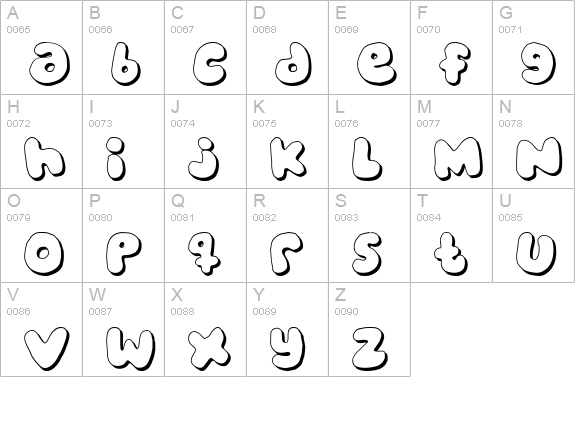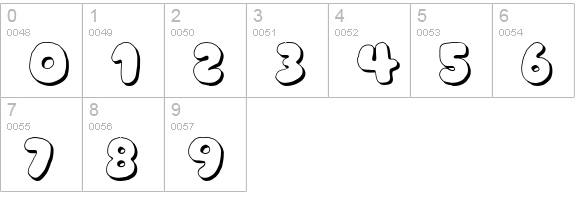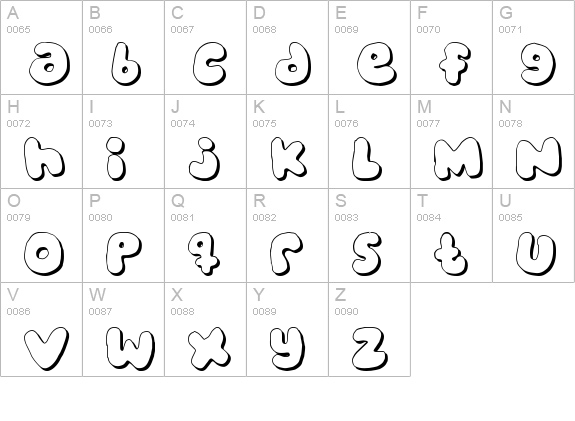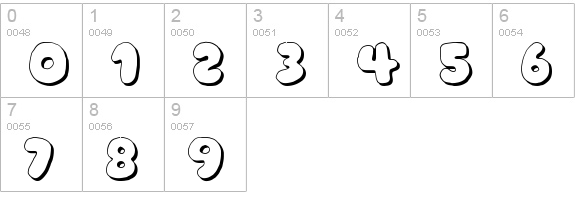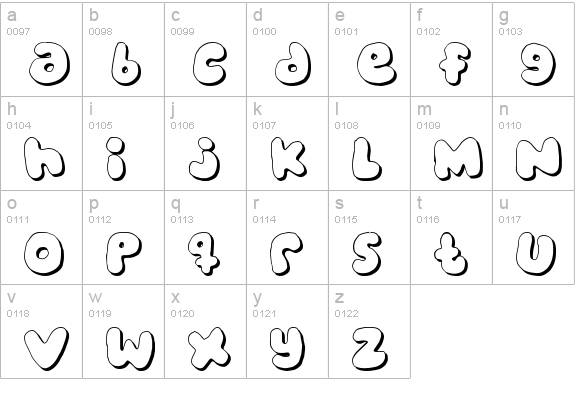
bubblegums Font Details
Introducing the delightful Bubblegums font, a playful and whimsical typeface that is sure to add a fun and charming touch to your designs. With its rounded edges and bubbly appearance, Bubblegums is perfect for creating eye-catching headlines, posters, invitations, and more. What's even better is that Bubblegums is completely free to download at FontsMarket.com. This means you can easily access this delightful font and incorporate it into your projects without any cost. So why wait? Add a touch of sweetness to your designs with Bubblegums font today!